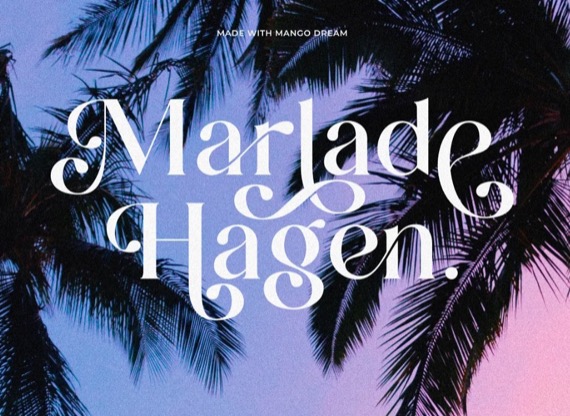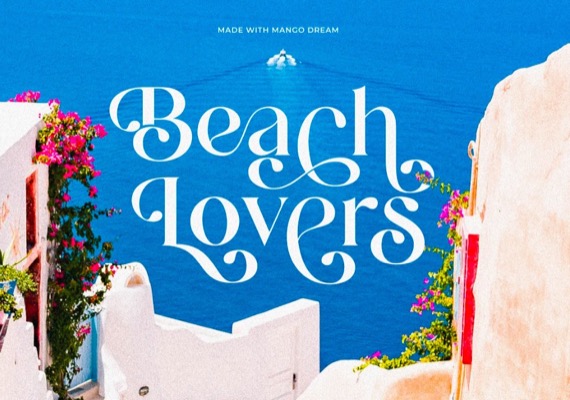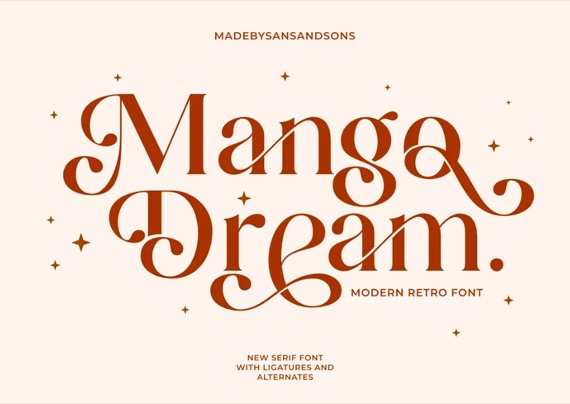
Mango Dream is an elegant and Modern Retro Ligature Serif Font that was created and shared by Sans and Sons. With Elegant Style this is perfect for branding, logos, invitation, mastheads, and more.
Mango Dream Serif Font